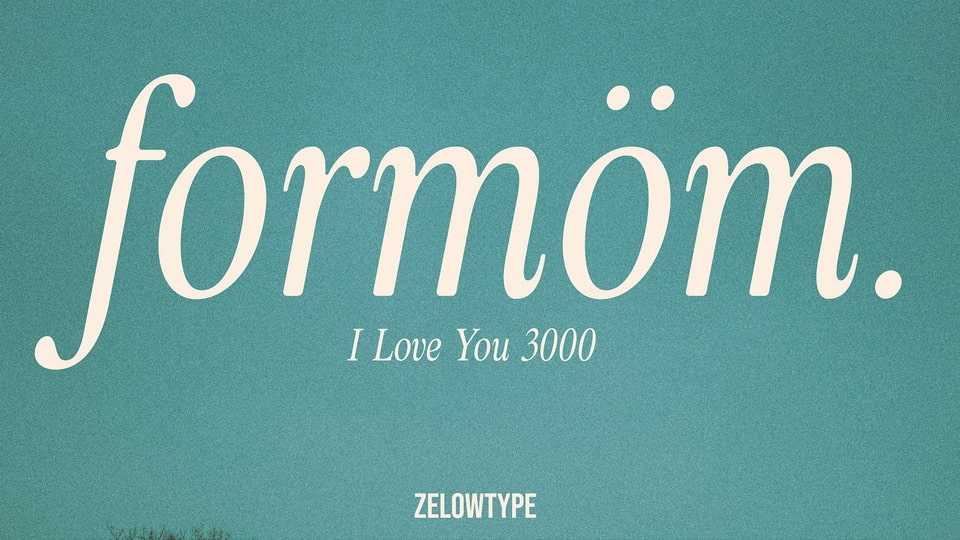
Download ZT Formom font, a beautiful serif typeface designed full of emotion, a masterpiece for the mother who just left this world.
Designer: Zelow Type